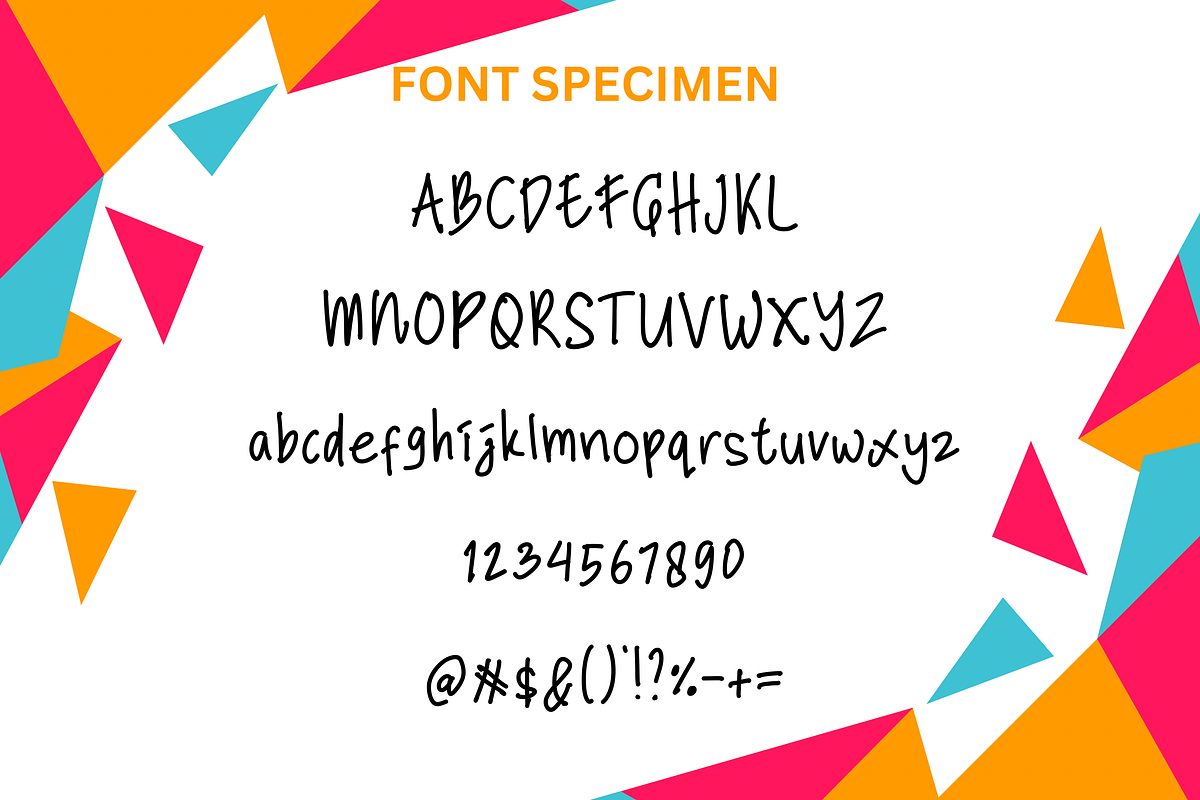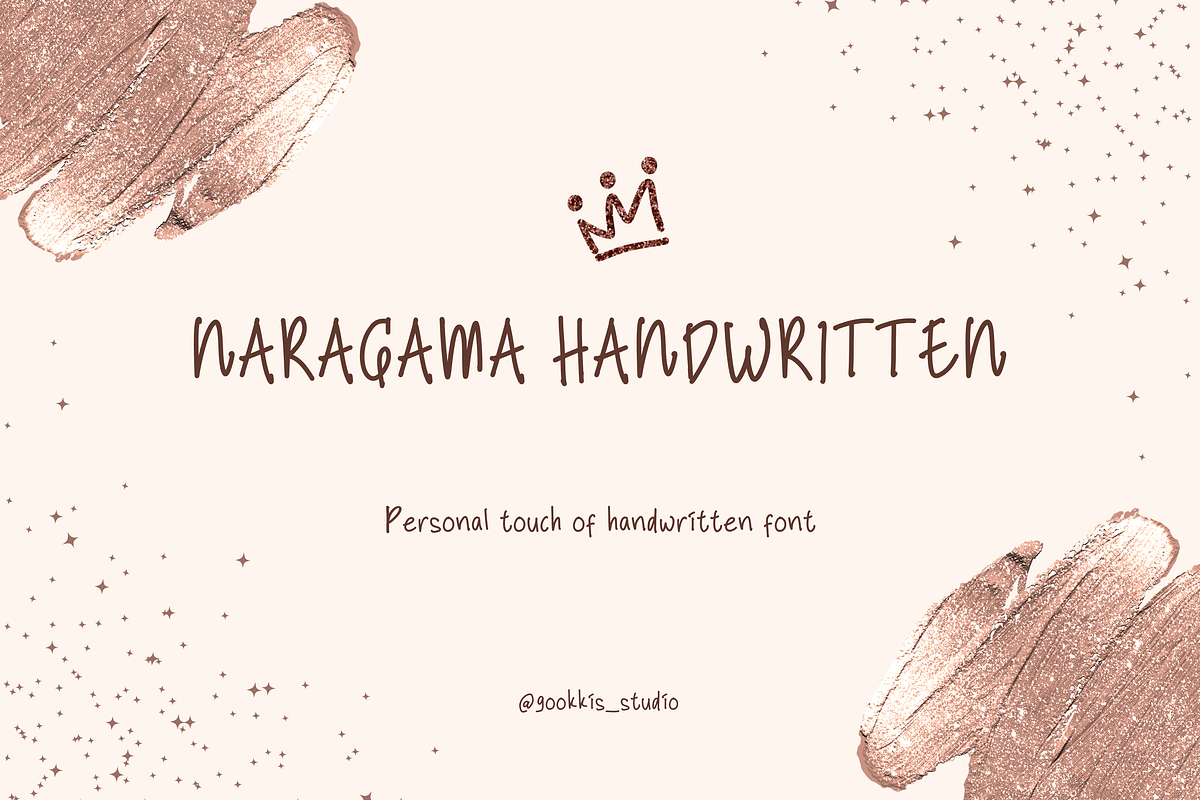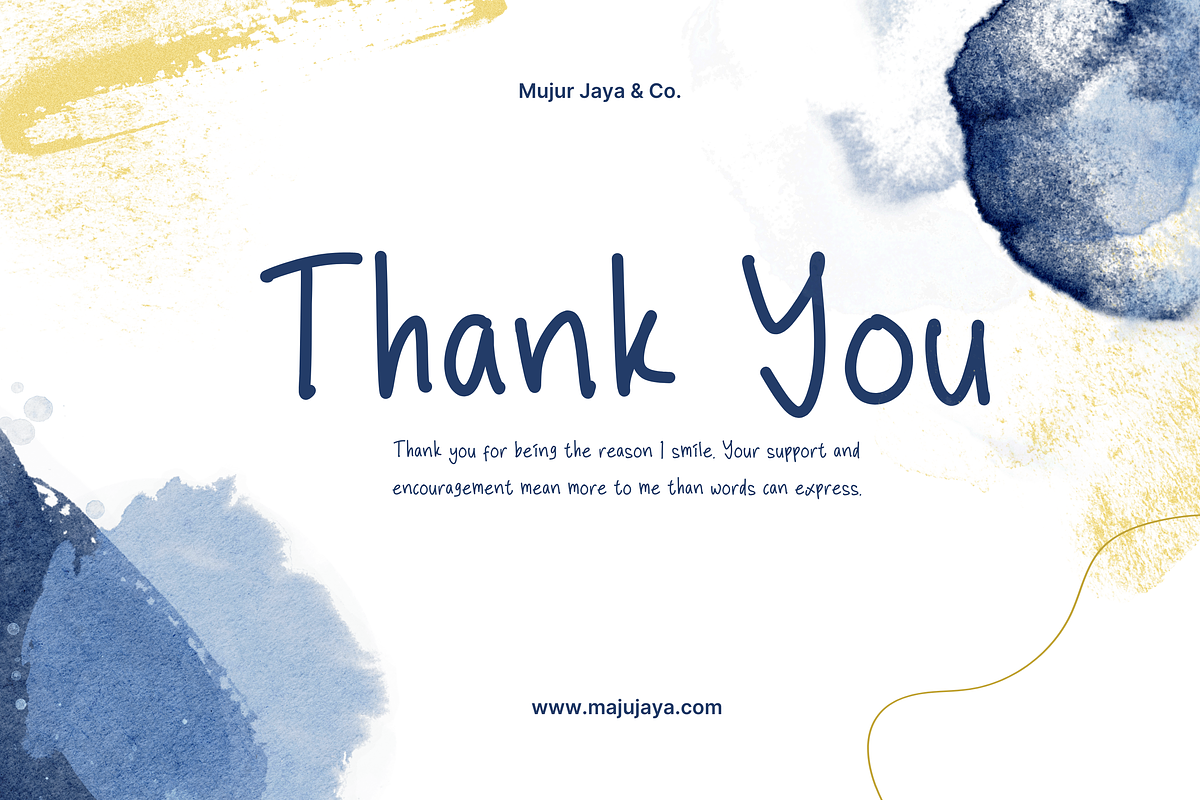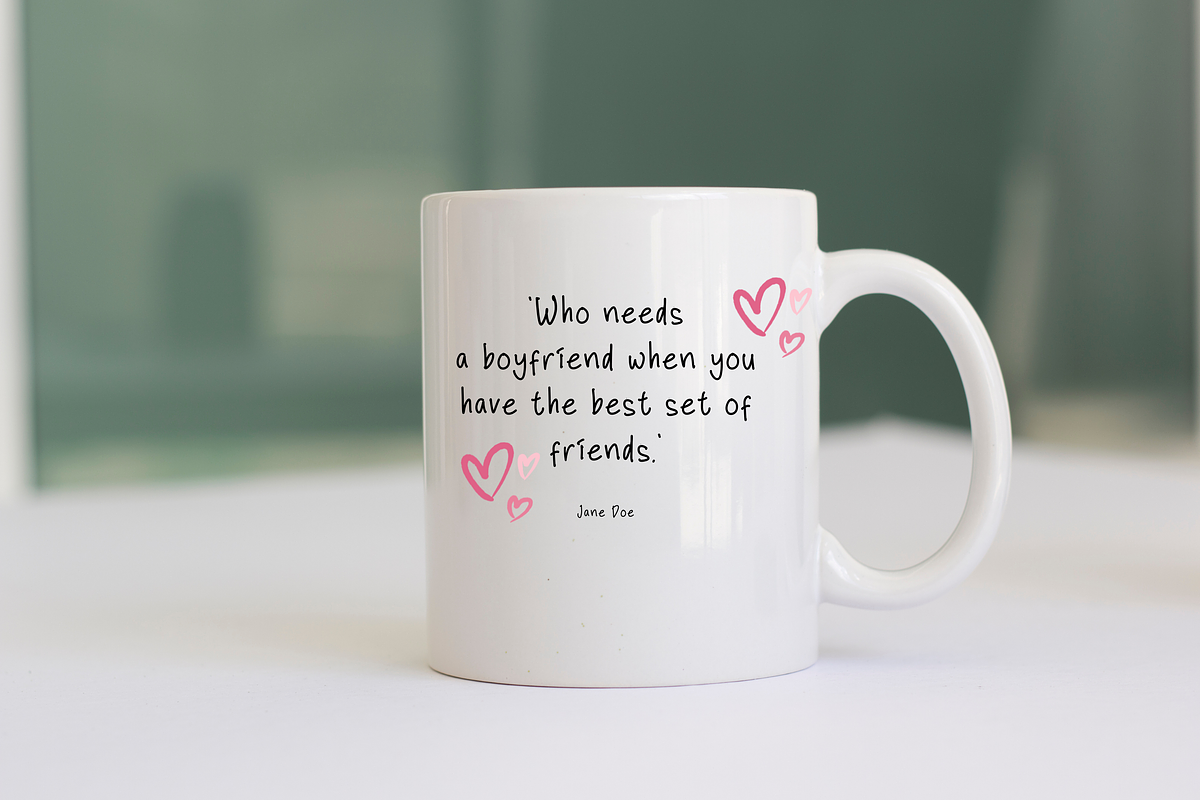
Naragama Handwritten
Naragama Font is a handwriting font designed to capture the natural beauty and personal touch of handwritten text. With its smooth strokes and elegant flow, Naragama evokes the feeling of writing with a fountain pen on paper. Its slightly curved characters and soft details make it perfect for various creative projects such as wedding invitations, greeting cards, logo designs, and other graphic endeavors that require a personal and artistic touch. This font brings a warm and friendly vibe, adding a unique character to any work.